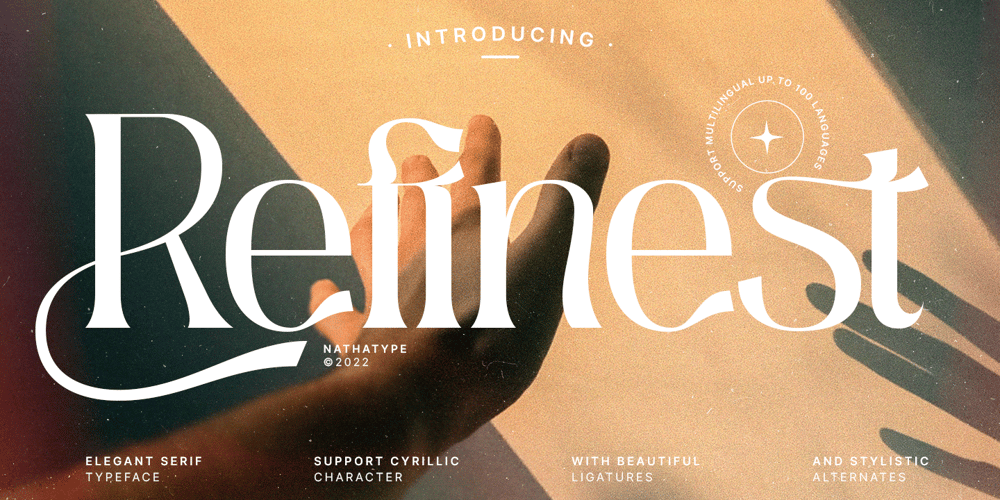
Refinest Font Family was designed by Donis Miftahudin and published by Nathatype. Refinest contains 1 styles and family package options. Whether for personal or professional purposes is absolutely needed to light up your result. Ignite the potential within you and elevate all your design performance with the Refinest. Refinest is an amazing serif font. While it certainly gets the job done in terms of readability, the unique characters give this particular font a more artistic vibe but still elegant than other serifs.Features: Alternates Ligatures Swashes Numerals and Punctuations PUA Encoded It can be used for many design projects, such as poster, logo, book cover, branding, heading, printed product, merchandise, quotes, social media campaign, etc. Learn more about how to use it by seeing the font preview.Thank you for purchasing our fonts. Please don’t hesitate to contact us, if you have any further question or issues. We’re happy to help. Happy Designing.